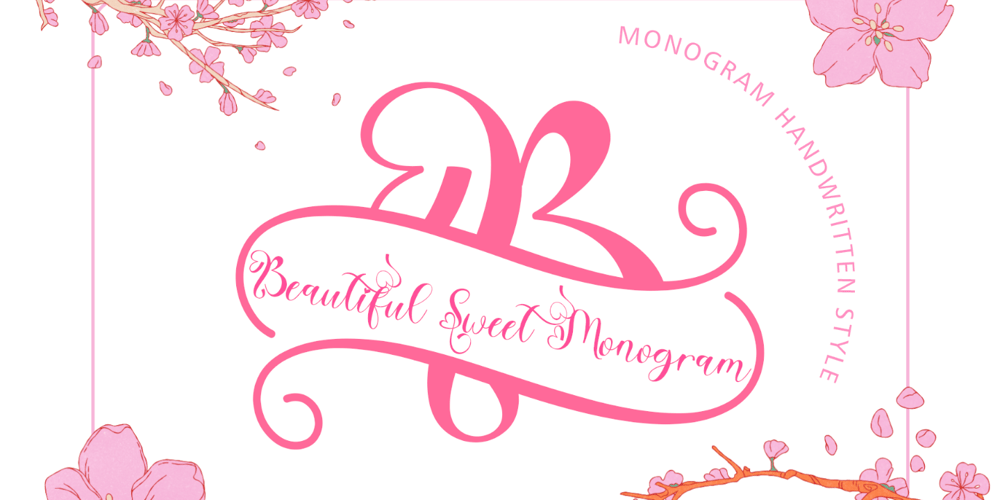
Beautiful Sweet Regular Font Family was designed by Isroni Yoga Prasetya and published by Yoga Letter. Beautiful Sweet Regular contains 2 styles and family package options. “Beautiful Sweet Monogram” is a beautiful handwritten monogram font. It comes with capital letters, lowercase letters, numbers, punctuation, and multilingual support. It is perfect for use in weddings, photography, Christmas, Valentine’s, stickers, banners, branding, invitations, and more.